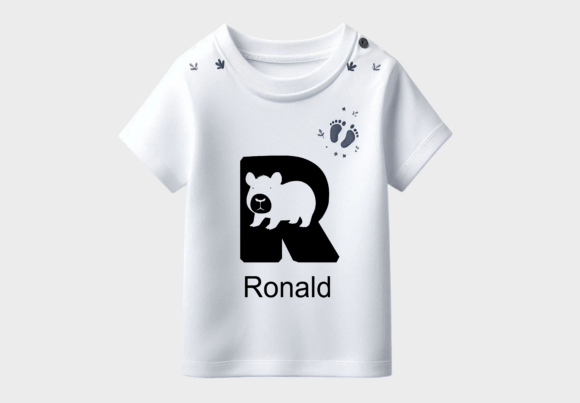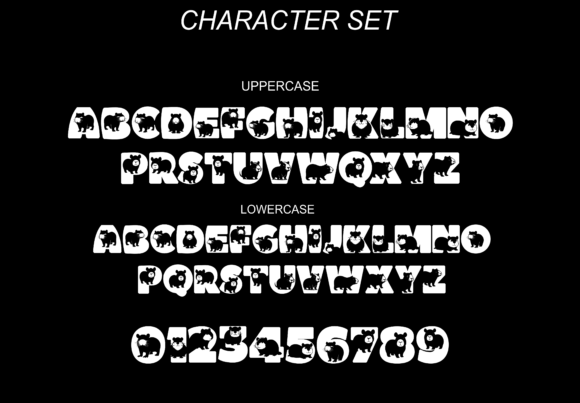
Experience the Visual Wonder of Capybara Font: Elevate Your Design to New Heights
In the realm of contemporary design, typography plays a pivotal role in conveying messages, evoking emotions, and creating lasting impressions. Among the myriad of typefaces available, Capybara Font stands out as a beacon of innovation and creativity. This meticulously tailored typeface is not just a font; it’s an experience that invites designers and crafters to explore the pinnacle of modern design. With its typographic grandeur, Capybara Font adds an irresistible charm to your creations, drawing you and your audience into a rich world of artistic expression.
The Essence of Capybara Font: A Blend of Craftsmanship and Unpredictability
Capybara Font presents a spellbinding blend of precise craftsmanship and lively unpredictability, making it a unique addition to any design project. Its creation is a testament to the pursuit of perfection and the desire to push the boundaries of typographic design. Engineered with the definitive goal of uplifting your creative voyage, Capybara Font endows your design with a unique typographic atmosphere that captivates and engages.
Unmatched Visual Appeal: A Deep Dive into Capybara Font’s Design
The unmatched visual appeal of Capybara Font is deeply woven into every aspect of its design. Each letterform, carefully crafted with attention to detail, contributes to a harmonious and aesthetically pleasing visual experience. This meticulous attention to detail amplifies your creative expression, allowing your work to stand out in a crowded design landscape. Whether you’re working on a branding project, a website, or a print design, Capybara Font brings a level of sophistication and elegance that elevates your work to new heights.
Capybara Font: More Than Just a Typeface
Capybara Font transcends from being just a typeface, evolving into a crucial partner in your creative journey. It’s not merely a tool for communication but a dynamic launchpad into a world teeming with unparalleled design sophistication. With Capybara Font, you’re armed with the ability to transform your ideas into visually stunning realities that resonate with your audience. Its presence in your design toolkit signifies a commitment to excellence and a passion for creating memorable experiences.
Elevating Your Creative Voyage
The ultimate goal of Capybara Font is to uplift and inspire. By integrating this exceptional typeface into your projects, you’re not just enhancing the visual appeal; you’re also embarking on a journey of creative exploration. Capybara Font encourages designers to experiment, push boundaries, and explore new dimensions of artistic expression. It’s a catalyst for innovation, fostering a creative environment where imagination knows no bounds.
Why Choose Capybara Font?
Choosing Capybara Font for your design projects comes with numerous benefits:
• Unique Typographic Atmosphere: Capybara Font brings a distinctive typographic style that sets your work apart from the rest.
• Versatility: Suitable for a wide range of design projects, from digital interfaces to print materials.
• Emotional Connection: Its elegant and captivating design helps create an emotional connection with your audience.
• Creative Freedom: Offers the flexibility to experiment with various design elements, ensuring your work is always fresh and engaging.
Capybara Font is more than just a typeface; it’s a gateway to a world of limitless creative possibilities. Its blend of precise craftsmanship and lively unpredictability, coupled with its unmatched visual appeal, makes it an indispensable asset for designers and crafters. By choosing Capybara Font, you’re not just elevating your design; you’re also embracing a philosophy of excellence and innovation. Experience the visual wonder of Capybara Font and let it guide you into a future where design knows no bounds.
Embark on this creative journey with Capybara Font and discover a new dimension of typographic grandeur that awaits you. Whether you’re a seasoned designer or an aspiring crafter, Capybara Font is your partner in unlocking the full potential of your creativity.